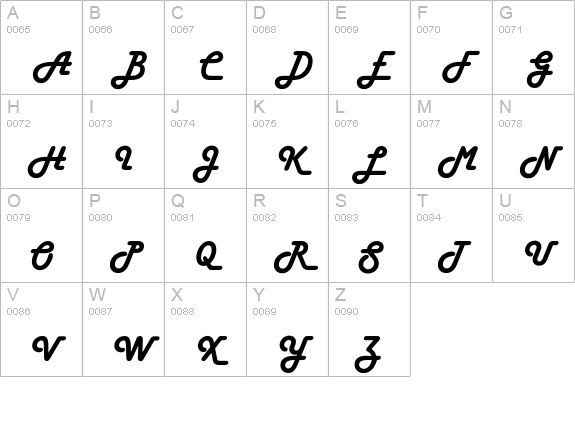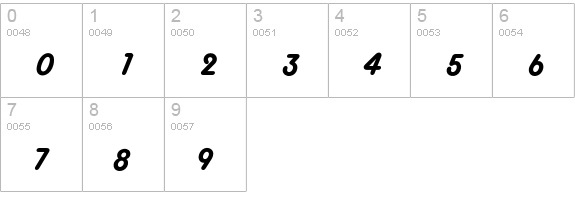
Harlekin Font Details
Harlekin font is a mesmerizing typeface that effortlessly combines elegance and playfulness. Its graceful curves and intricate details make it perfect for a variety of design projects, from wedding invitations to logo designs. This versatile font exudes a sense of whimsy and charm, making it ideal for adding a touch of personality to your creative endeavors. With its unique and eye-catching letterforms, Harlekin font is sure to captivate the attention of your audience. One of the best aspects of this font is that it is free! Yes, you read that right. Harlekin font is freely available to download at FontsMarket.com. This means that you can easily access this stunning typeface without breaking the bank. Whether you are a professional designer or a hobbyist, Harlekin font allows you to elevate your designs without any financial constraints. Not only is Harlekin font visually appealing, but it also offers a wide range of characters and glyphs, making it suitable for multilingual projects. Its extensive language support ensures that you can communicate your message effectively, no matter the language. So why wait? Unlock your creativity and explore the endless possibilities with Harlekin font. Download it for free today at FontsMarket.com and let your designs truly shine with its enchanting and captivating style.